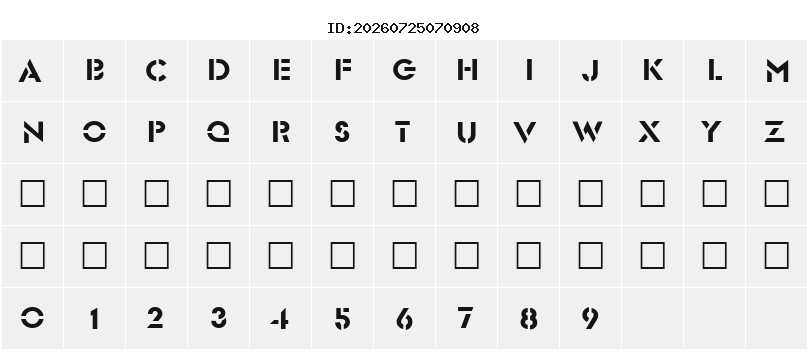
GlaserBroken Preview
• Font Name: GlaserBroken
• Full Font Name: GlaserBroken Regular
About GlaserBroken.ttf
GlaserBroken.ttf is a modern, elegant sans-serif font designed for ultimate readability and visual harmony. Perfect for branding, headlines, web design, and print materials.